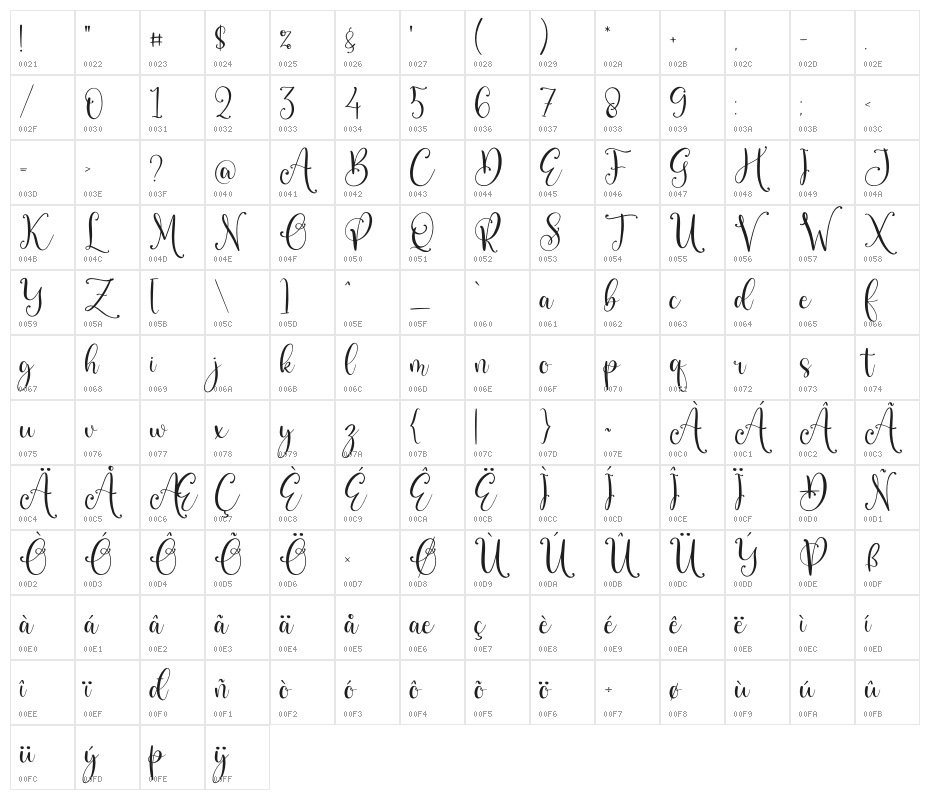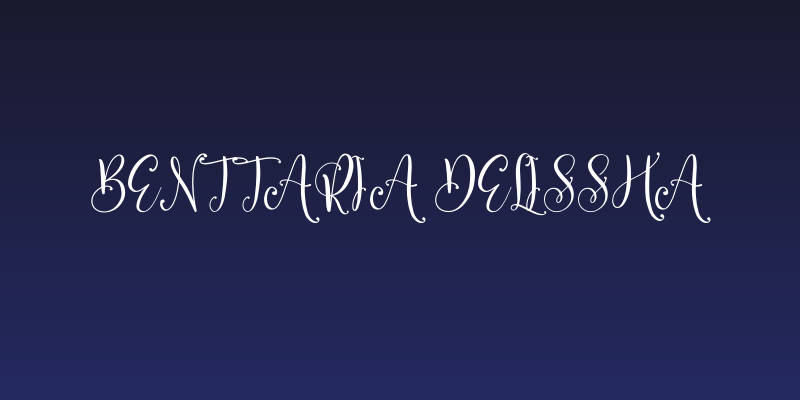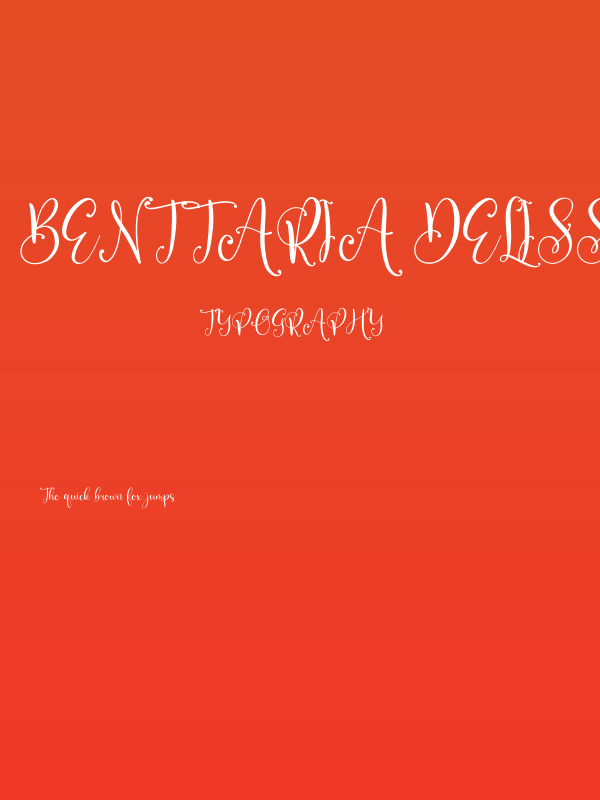
Benttaria Delissha Font
This font features an elegant and flowing script style, characterized by its decorative swirls and loops. The uppercase letters are particularly ornate, with flourishes that extend beyond the baseline and cap height, creating a sense of movement and grace. The lowercase letters maintain a consistent style, with smooth curves and a slightly condensed form that enhances readability. Numbers and special characters are designed to match the overall aesthetic, with similar embellishments that add to the font's cohesive look. The font's artistic nature makes it suitable for creative and expressive projects, where a touch of sophistication is desired.